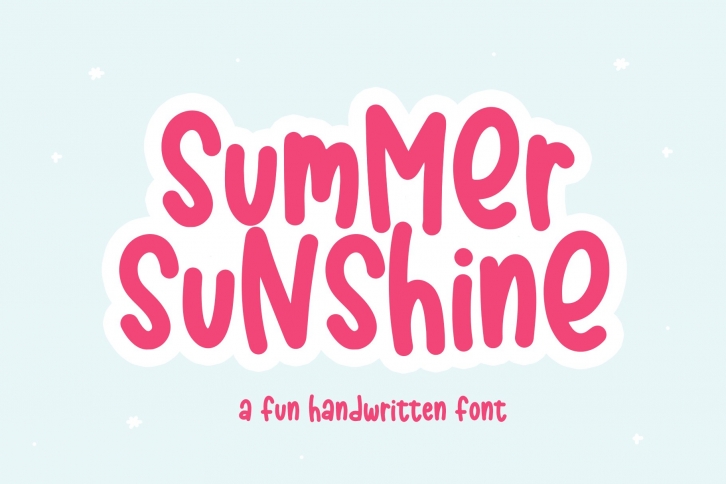
Summer Sunshine is a fun handwritten font!
This font is perfect for all of your craft projects, branding, shirt designs, svg designs, logos, prints and more!